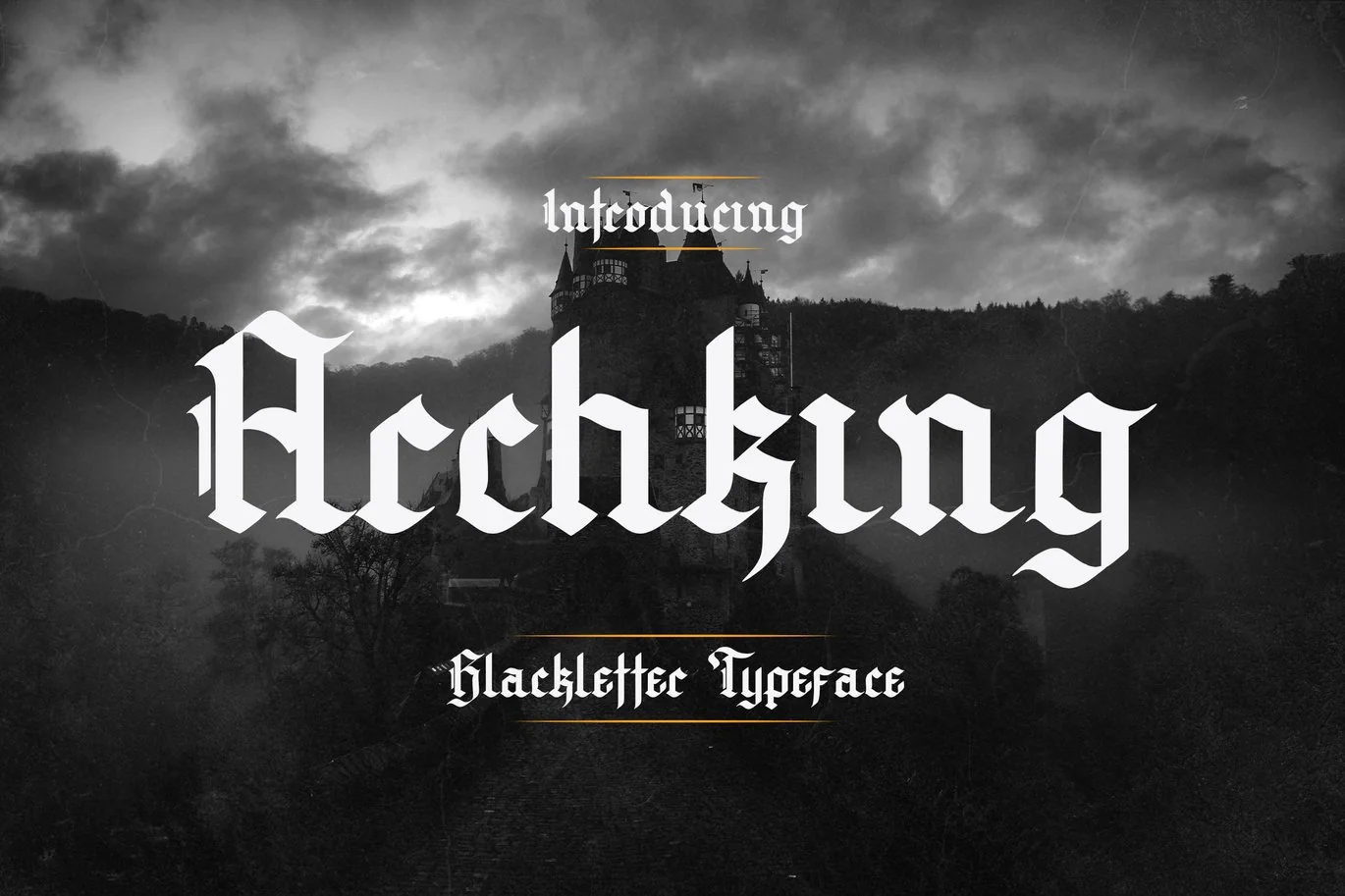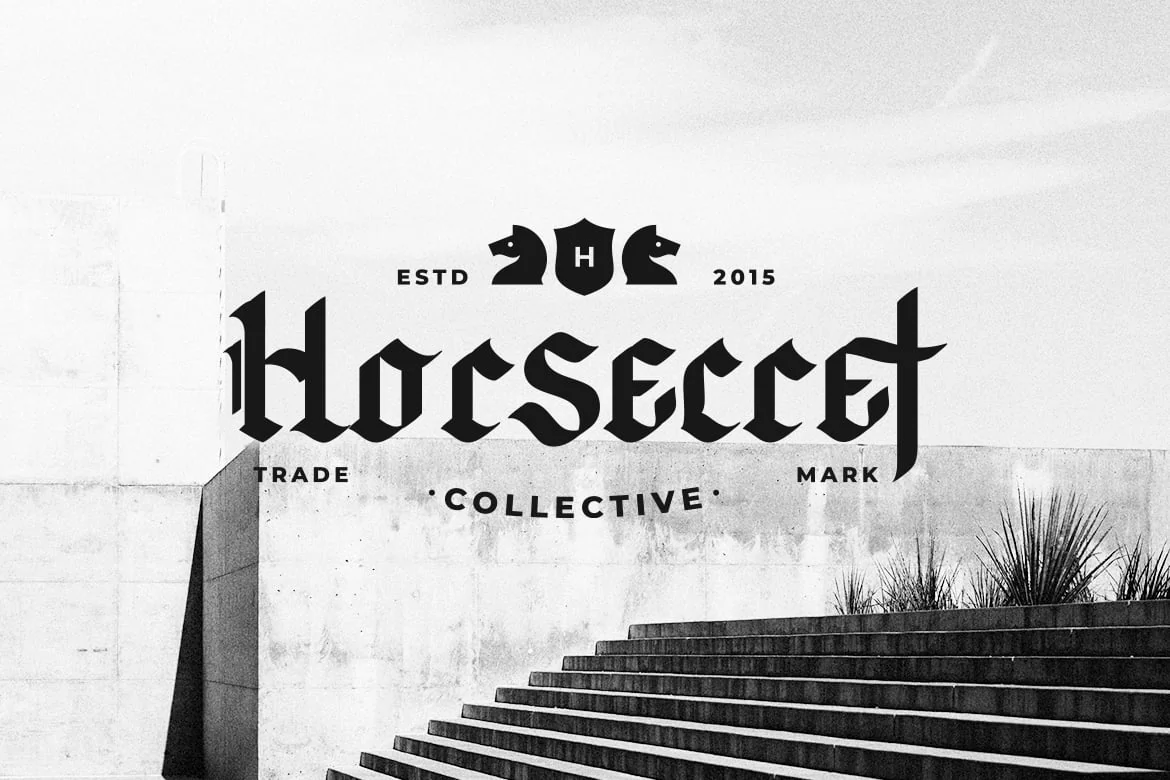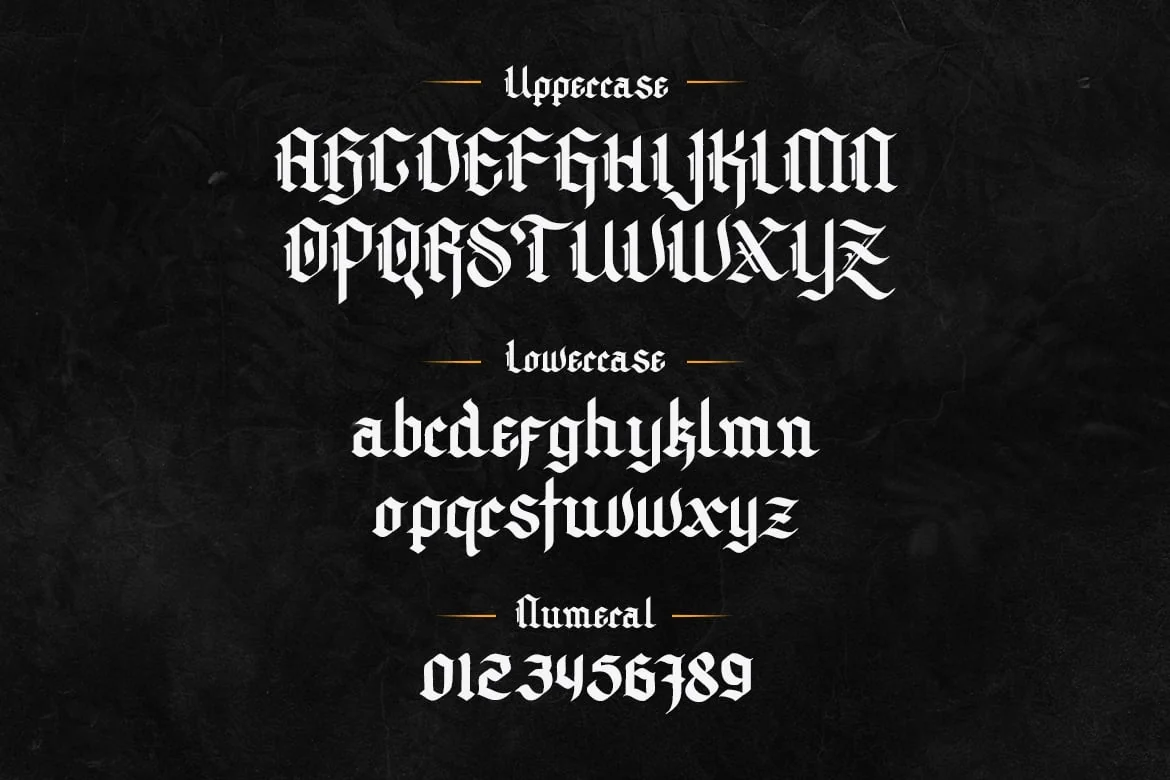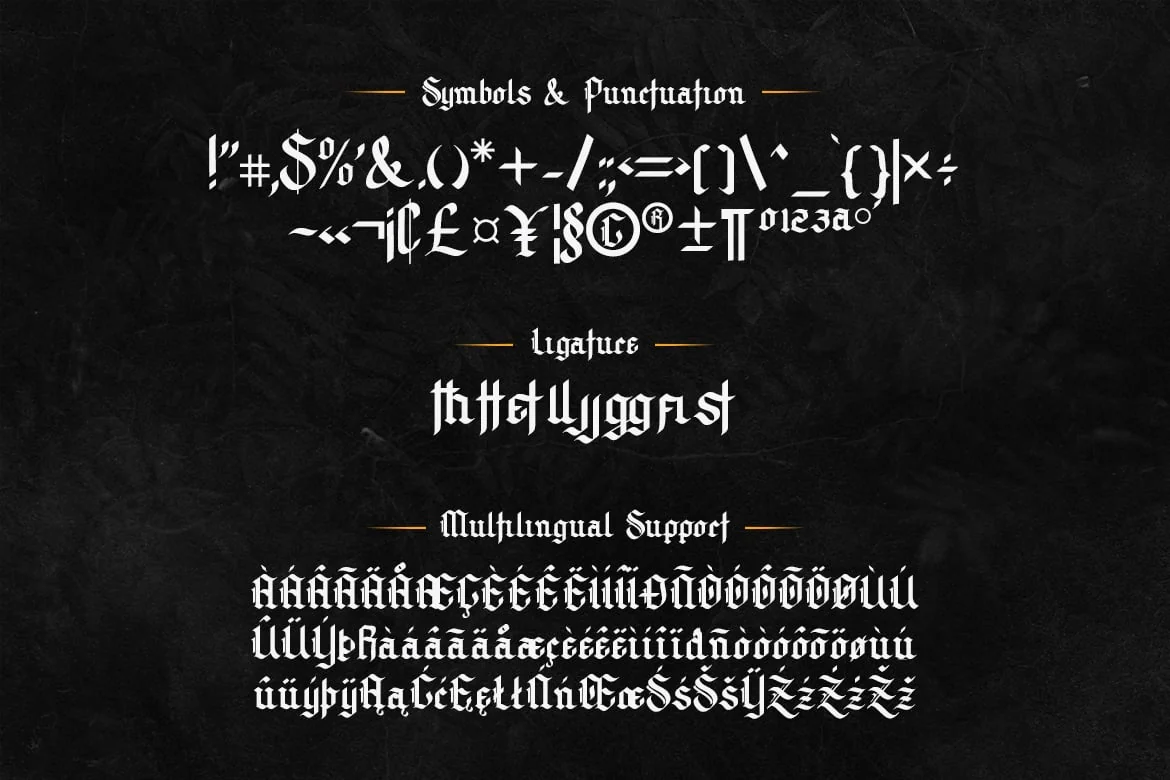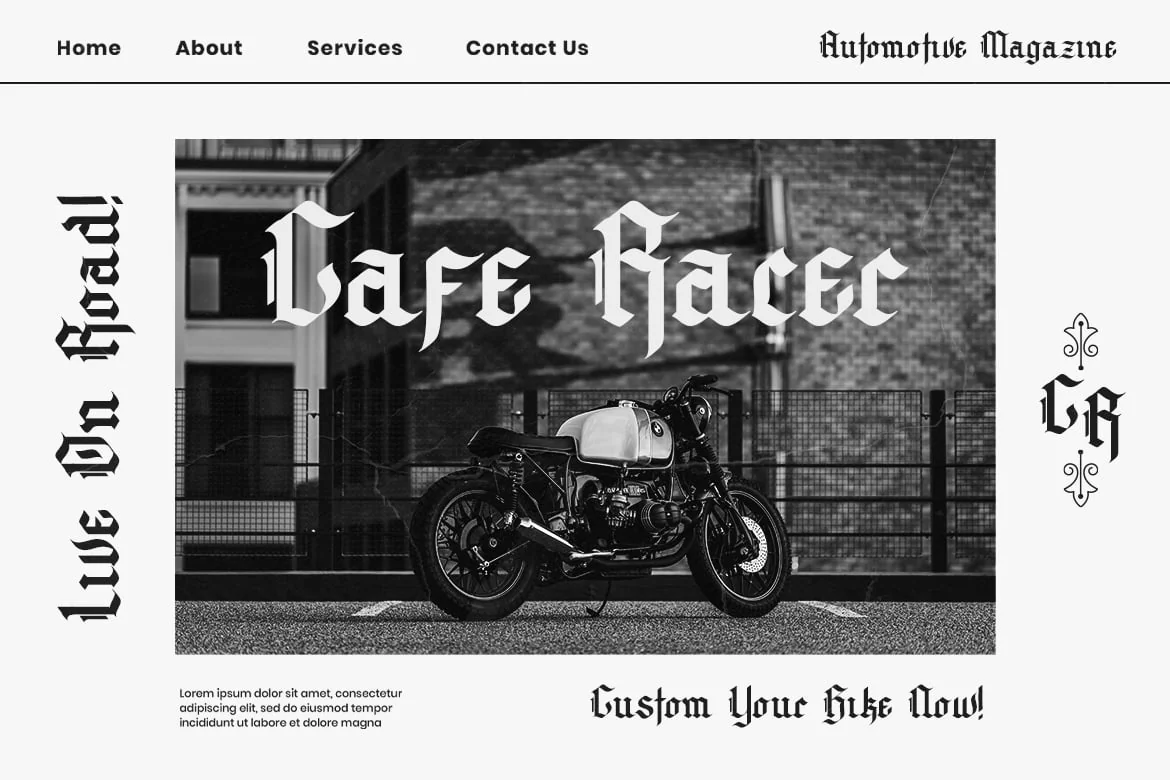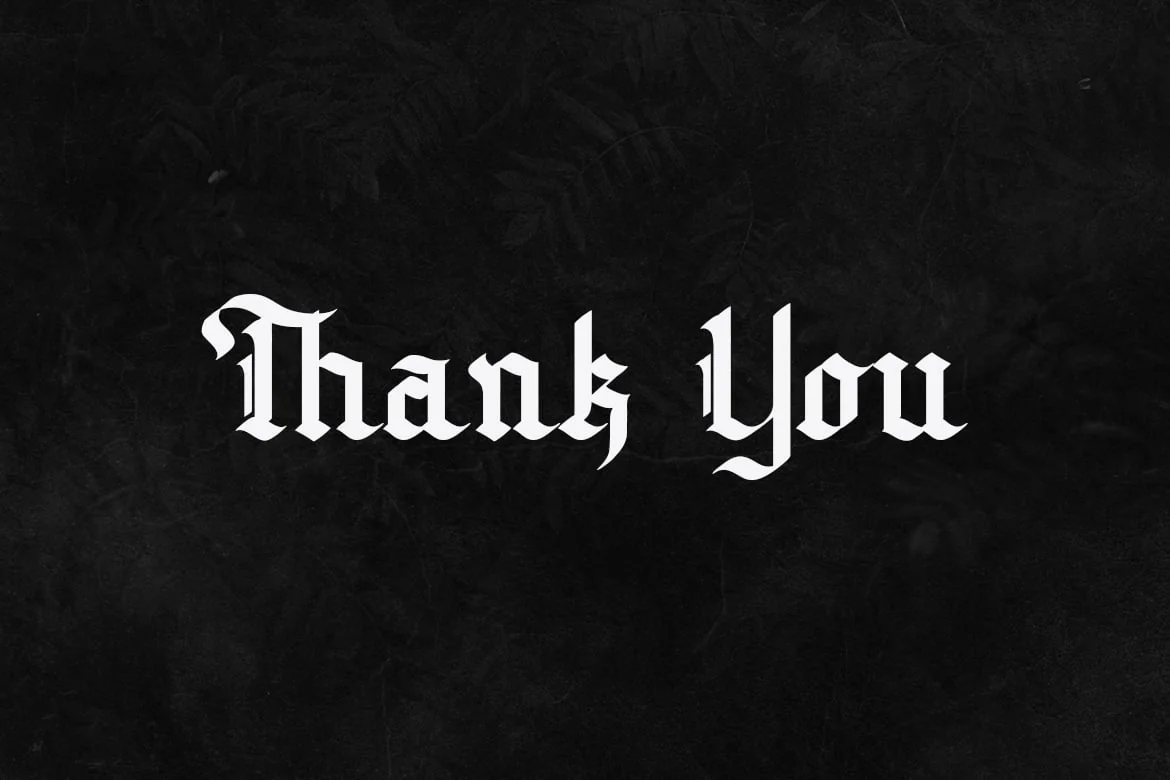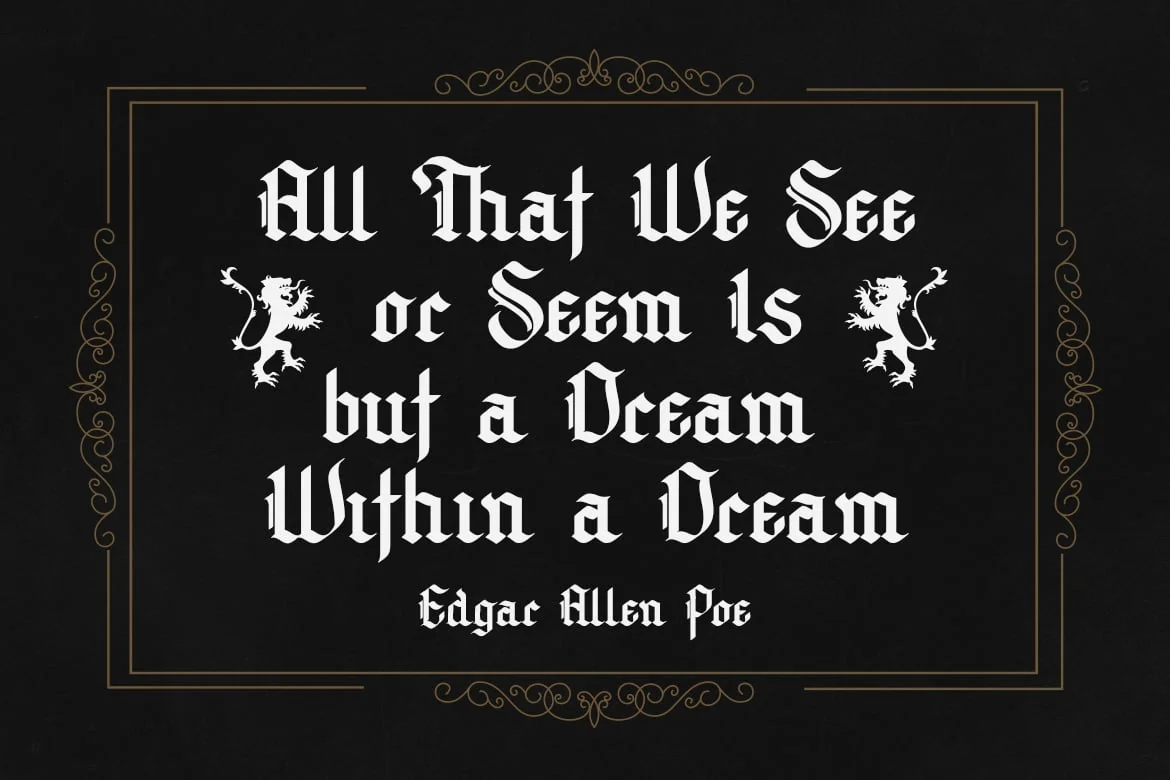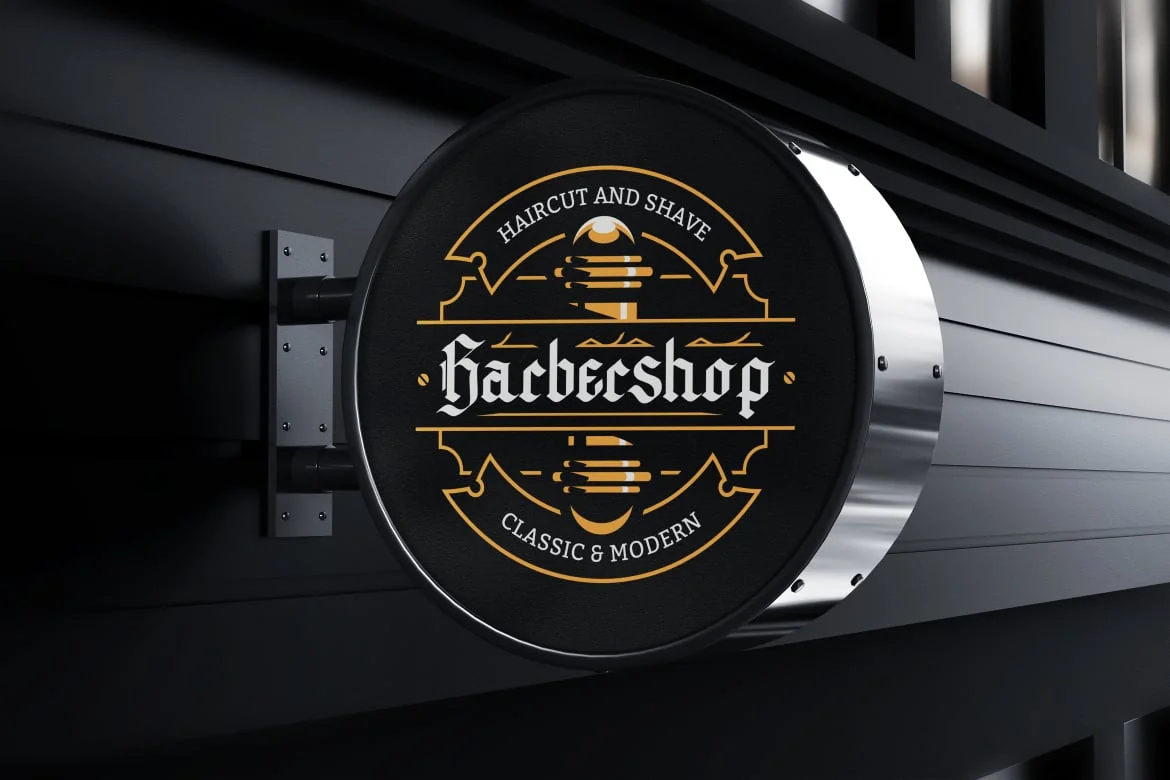
Archking – Blackletter Typeface
Archking is a modern blackletter font that is both appealing and enthralling! It brings extra ornaments! Dutch Brigade is perfect for product logo, posters, barber shop, headline, packaging, badge, wedding cards, and more!
– Numeral – Ligature – Alternate – Multilingual Support